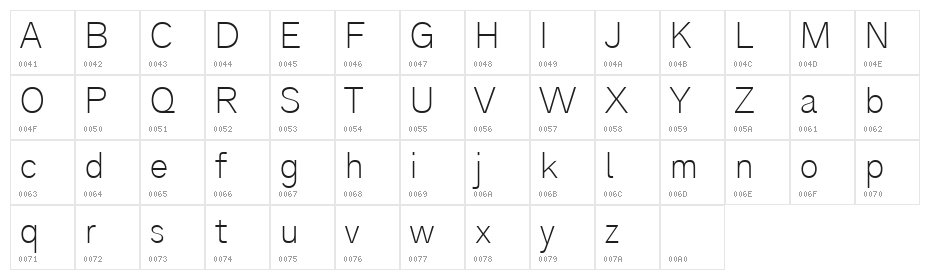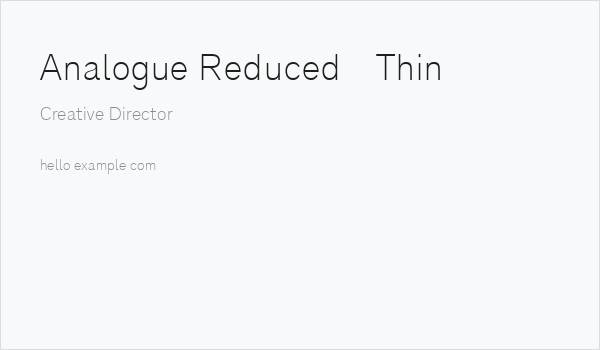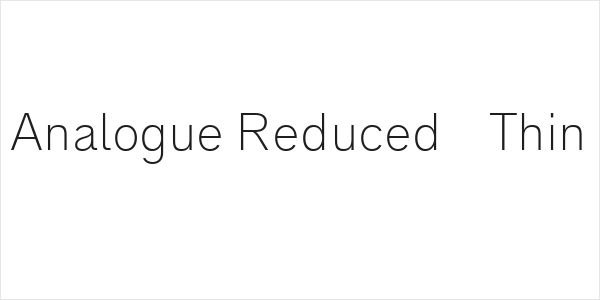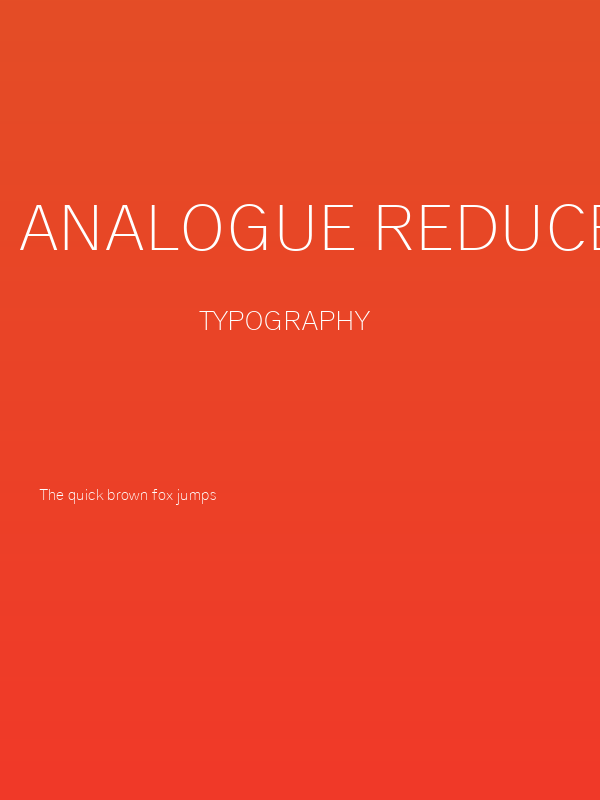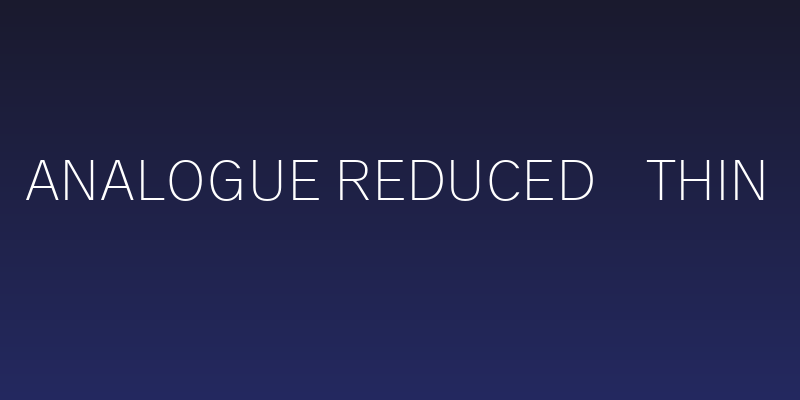
Analogue Reduced 35 Thin Font
Analogue Reduced 35 Thin Description
This font is a sleek and modern sans-serif typeface characterized by its thin and clean lines. It features a minimalist design with uniform stroke widths, providing a contemporary and elegant appearance. The characters are well-proportioned, with a balanced height and width that enhances readability. The uppercase and lowercase letters maintain a consistent style, offering a harmonious look across different text sizes. The numerals and special characters are designed to match the overall aesthetic, ensuring a cohesive visual presentation. This typeface is ideal for projects that require a sophisticated and understated touch.
| Proposed Projects | Ideal for branding, editorial design, web design, and corporate materials where a modern and clean look is desired. |